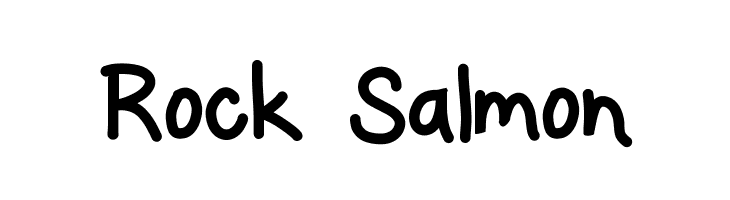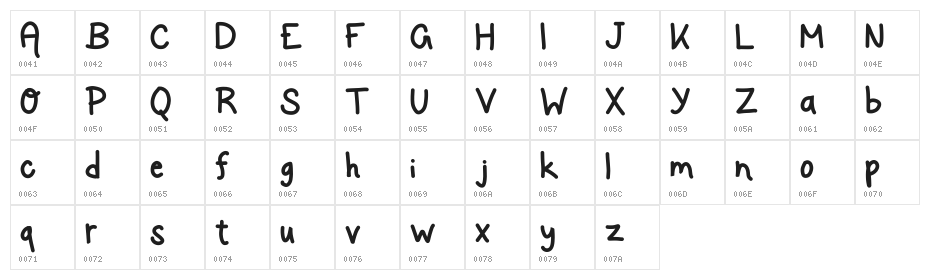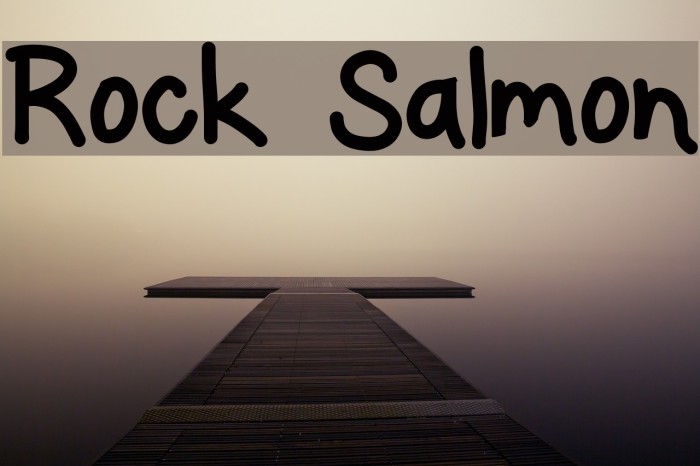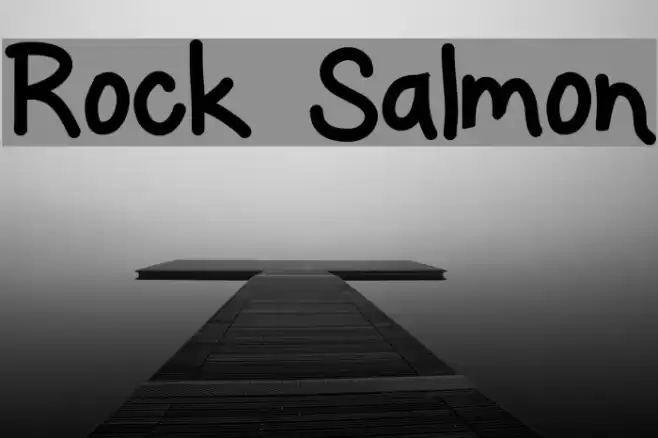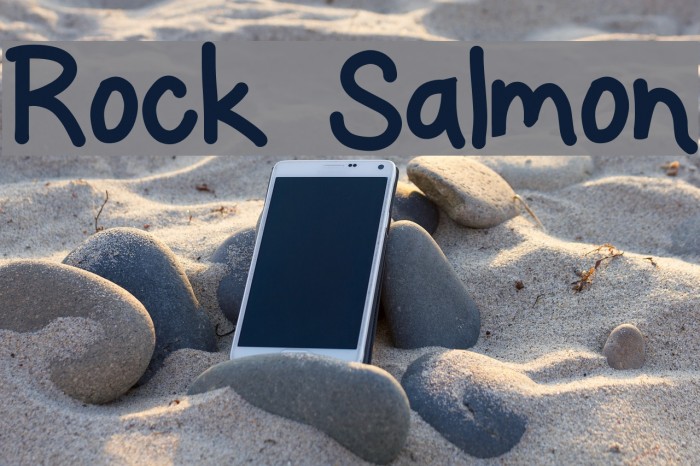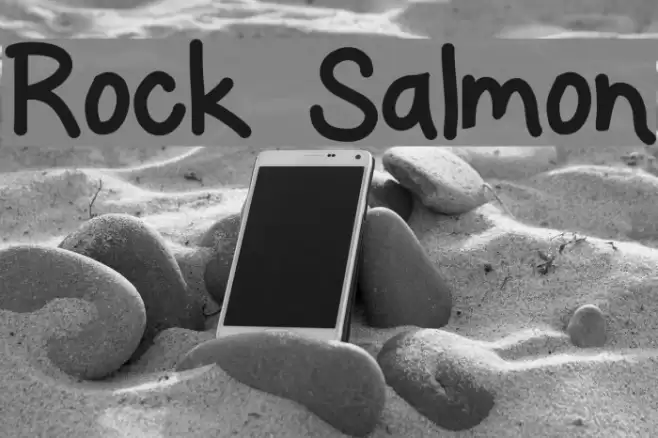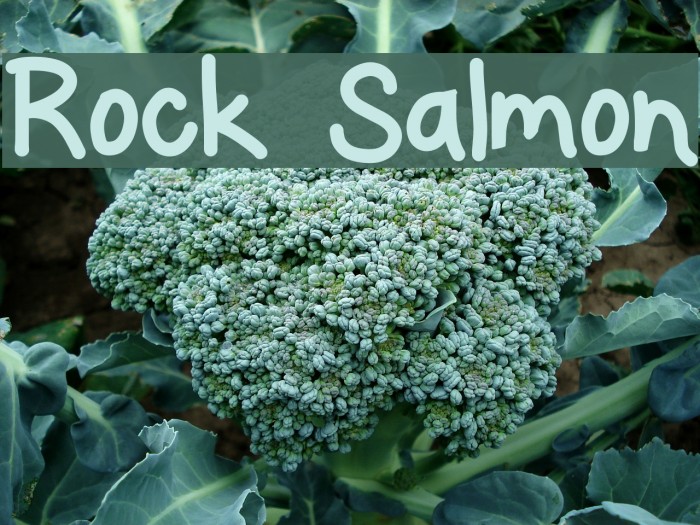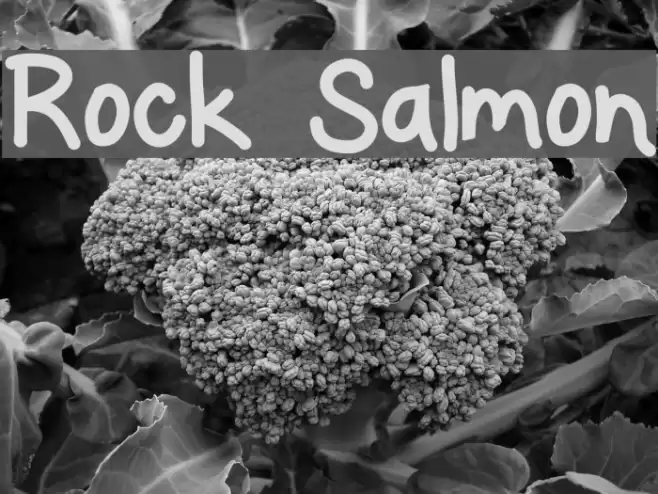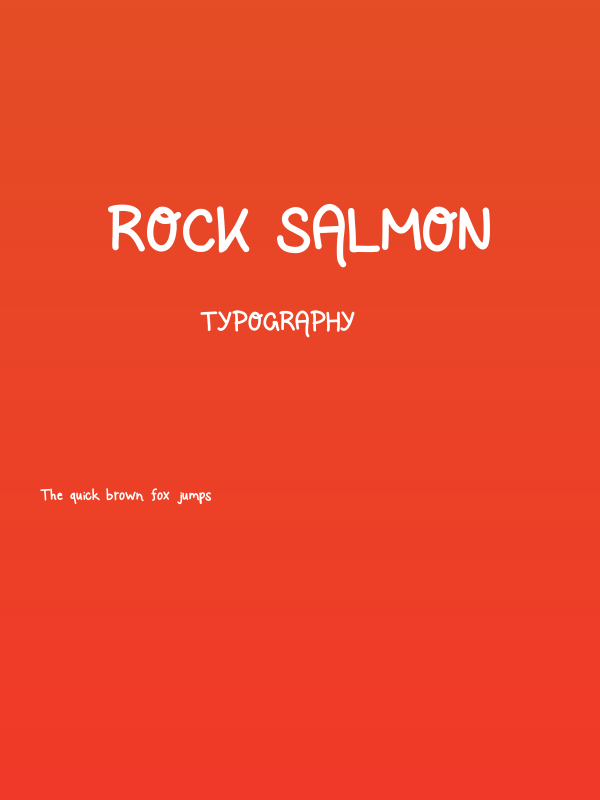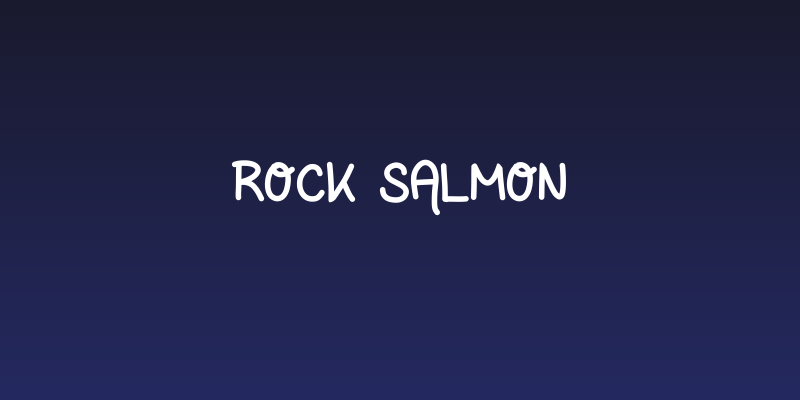
Rock Salmon Font
Rock Salmon Description
This playful and casual font features a handwritten style with smooth, rounded edges and a slightly irregular baseline, giving it a friendly and approachable appearance. The letters are bold and have a consistent stroke width, which enhances readability while maintaining a whimsical charm. The uppercase and lowercase letters are well-balanced, and the overall design is informal yet clear, making it suitable for a variety of creative projects. The font's unique character is further emphasized by its slightly wide character spacing, which adds to its legibility and appeal.
| Proposed Projects | Ideal for children's books, greeting cards, casual branding, and playful social media graphics. |